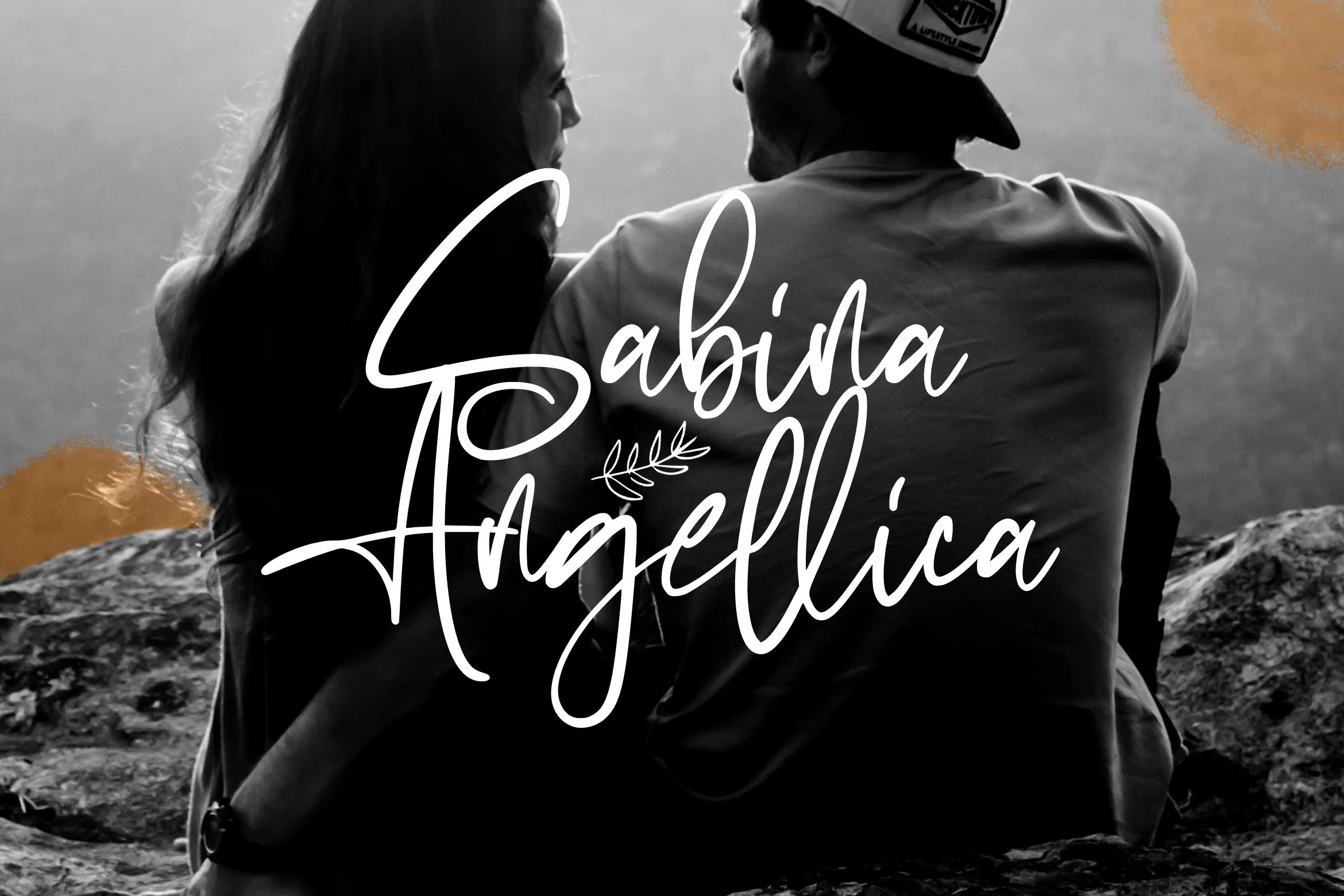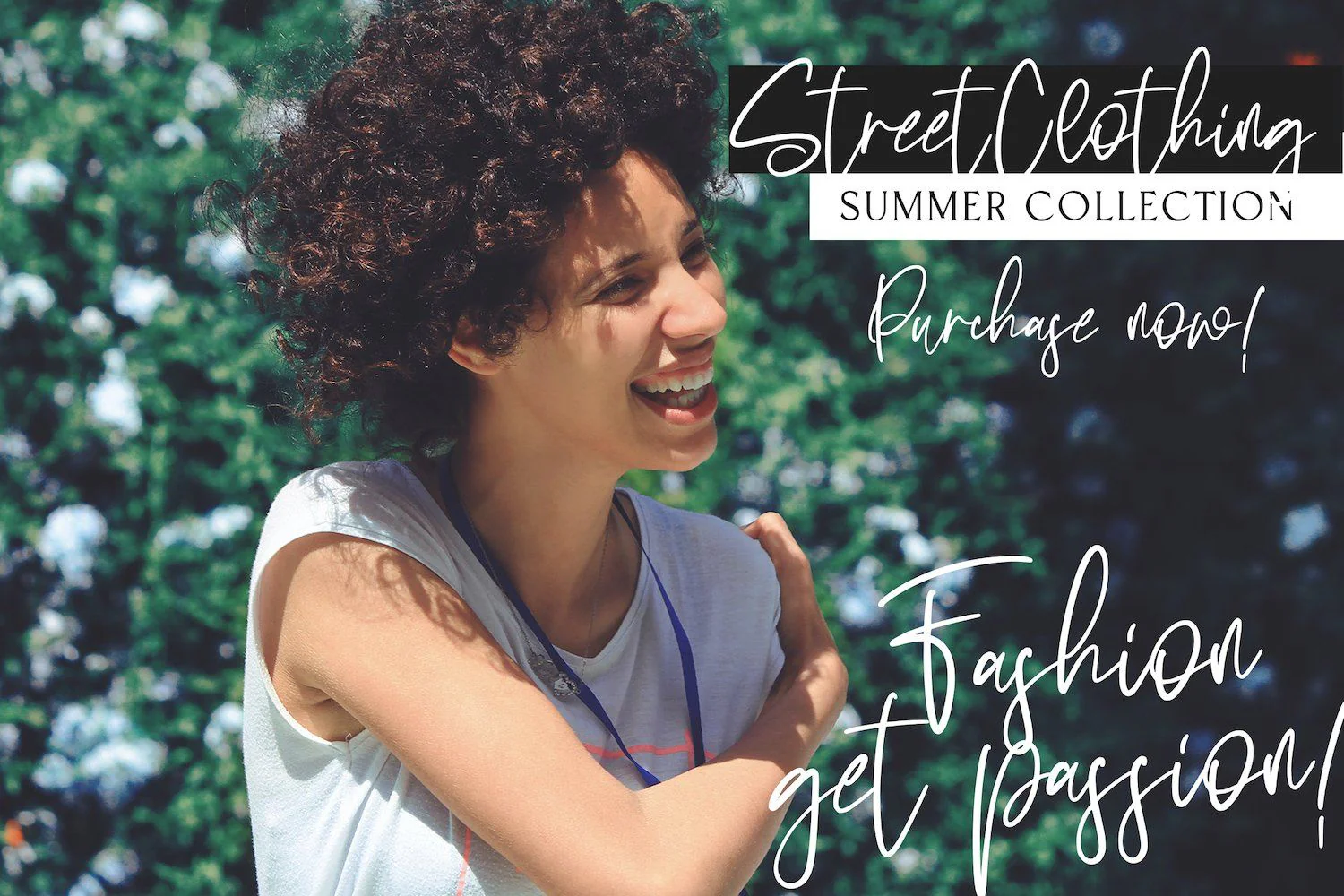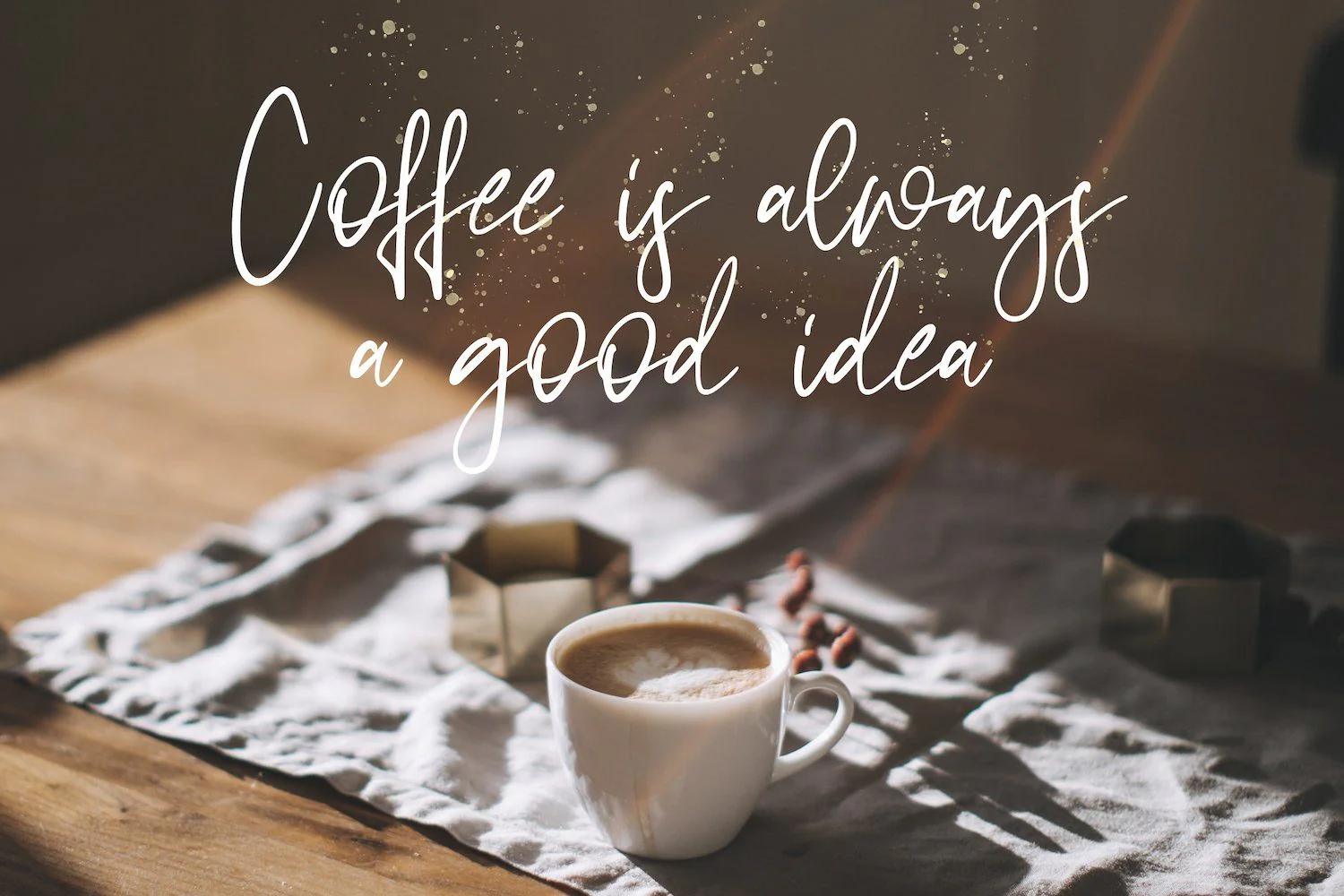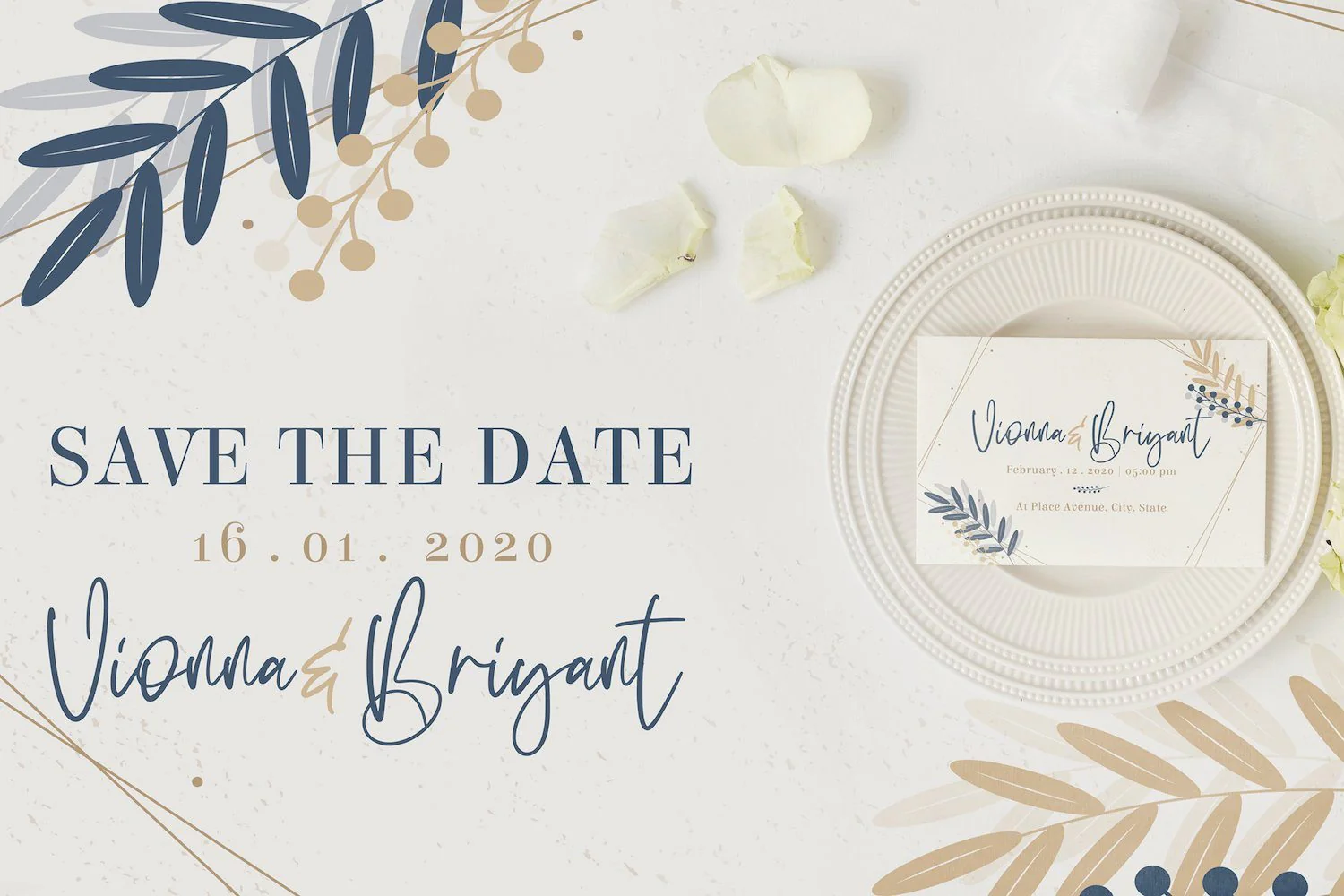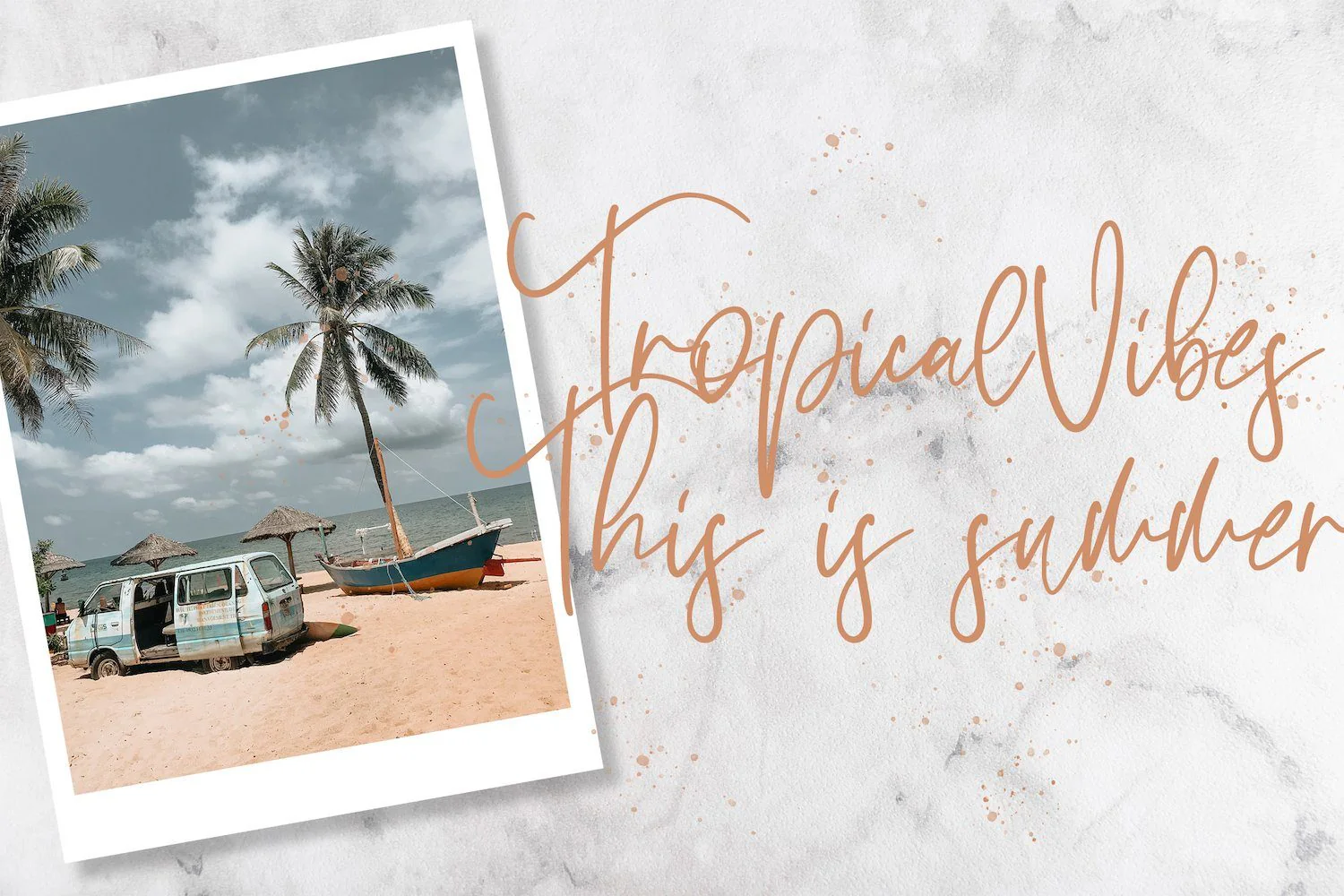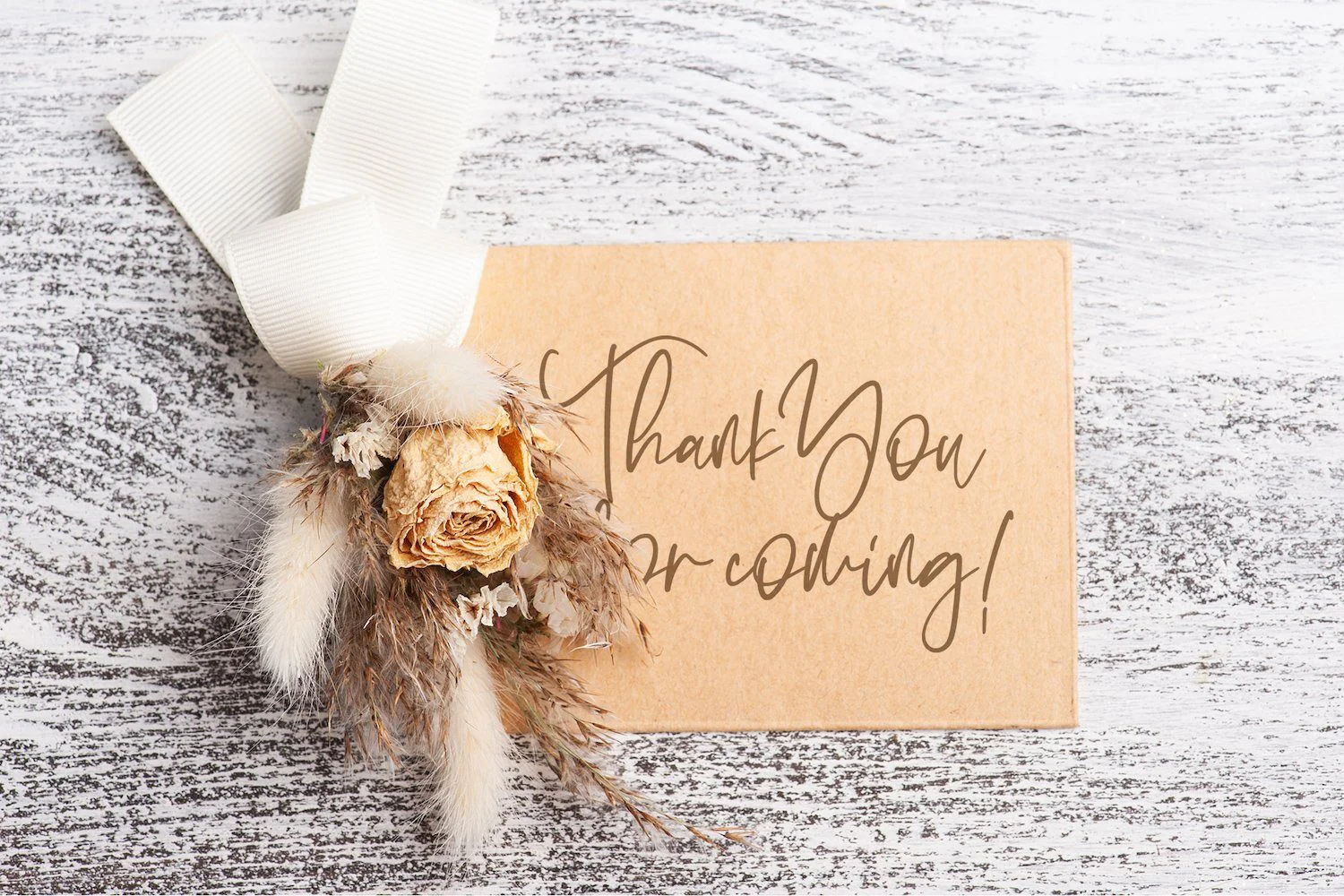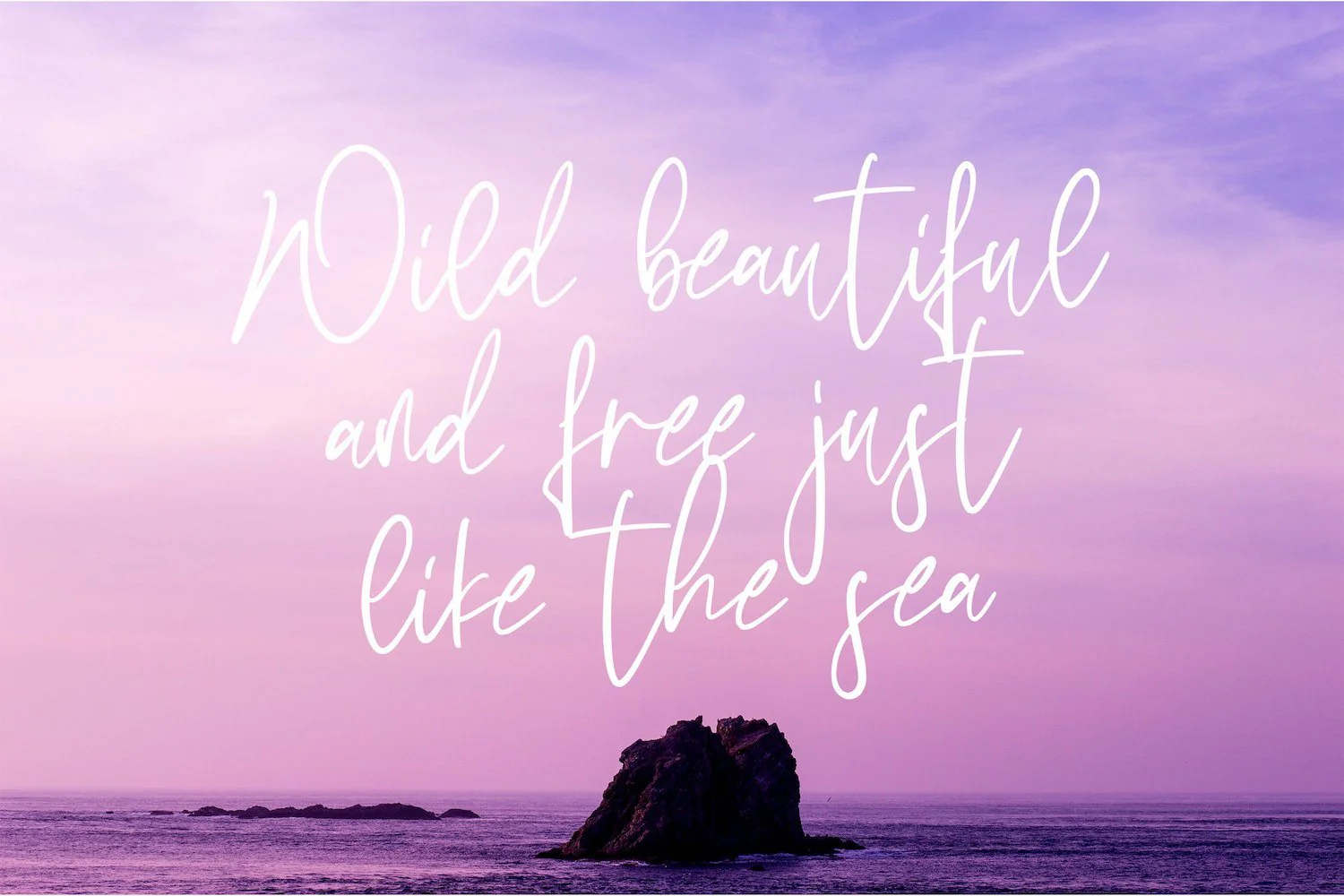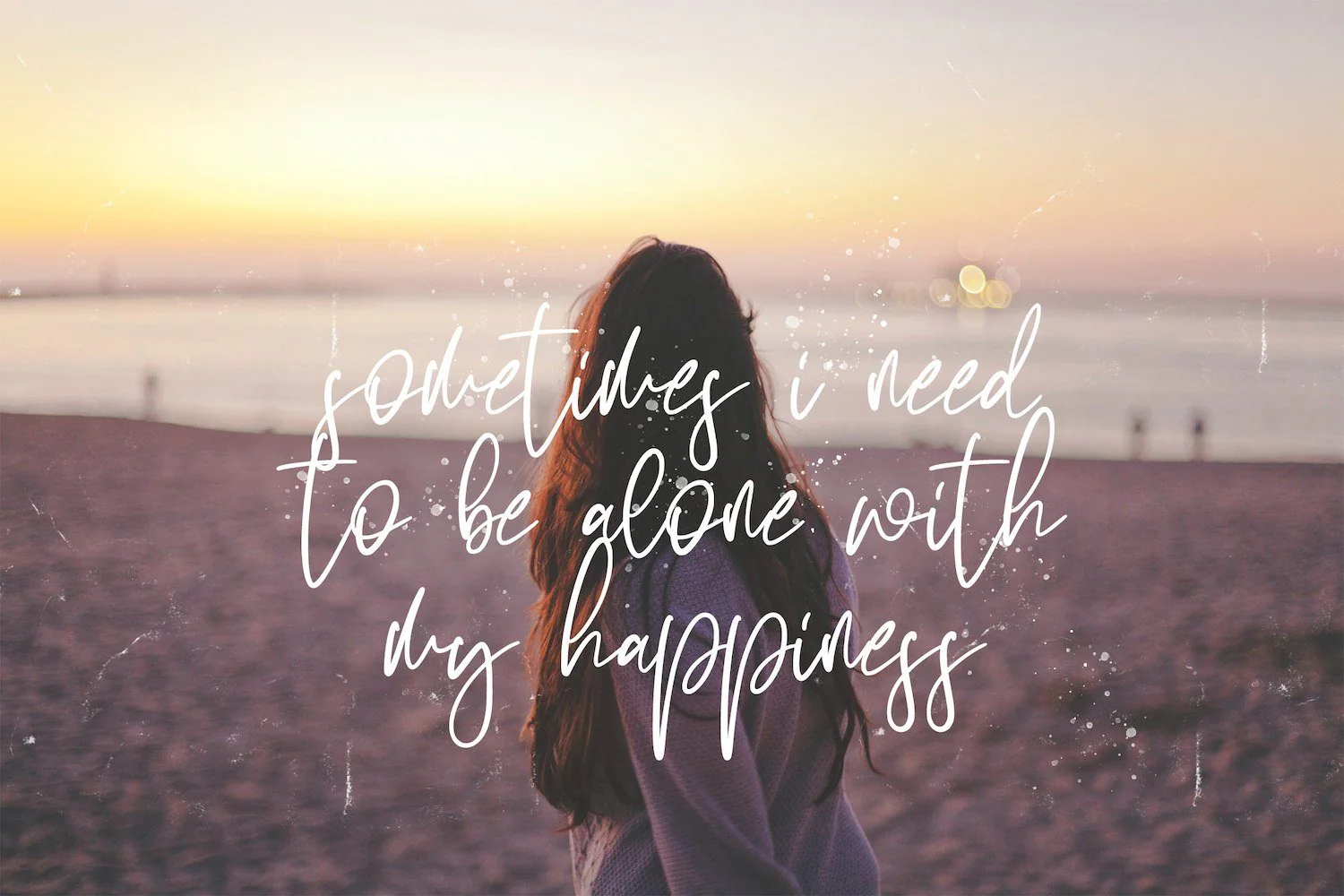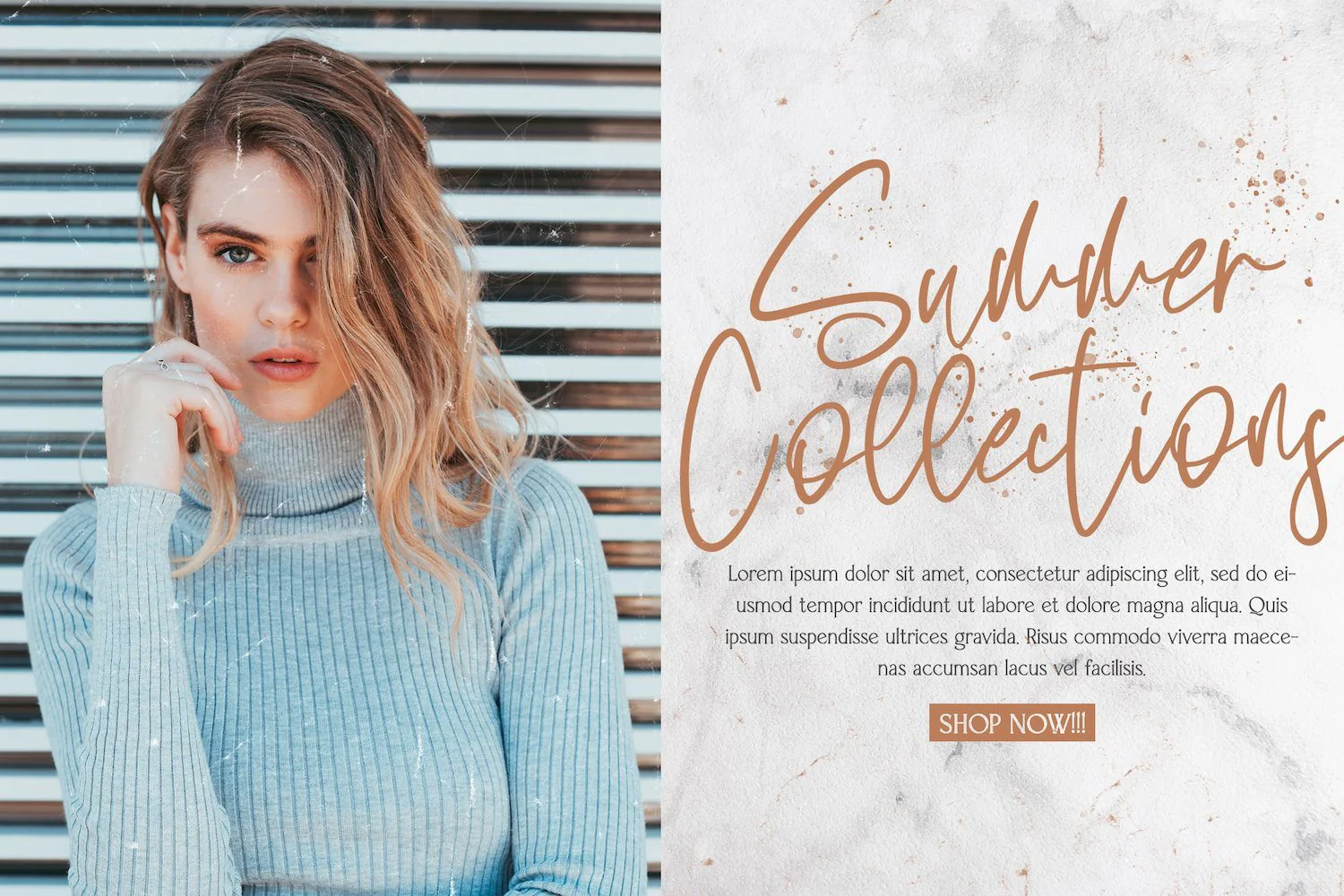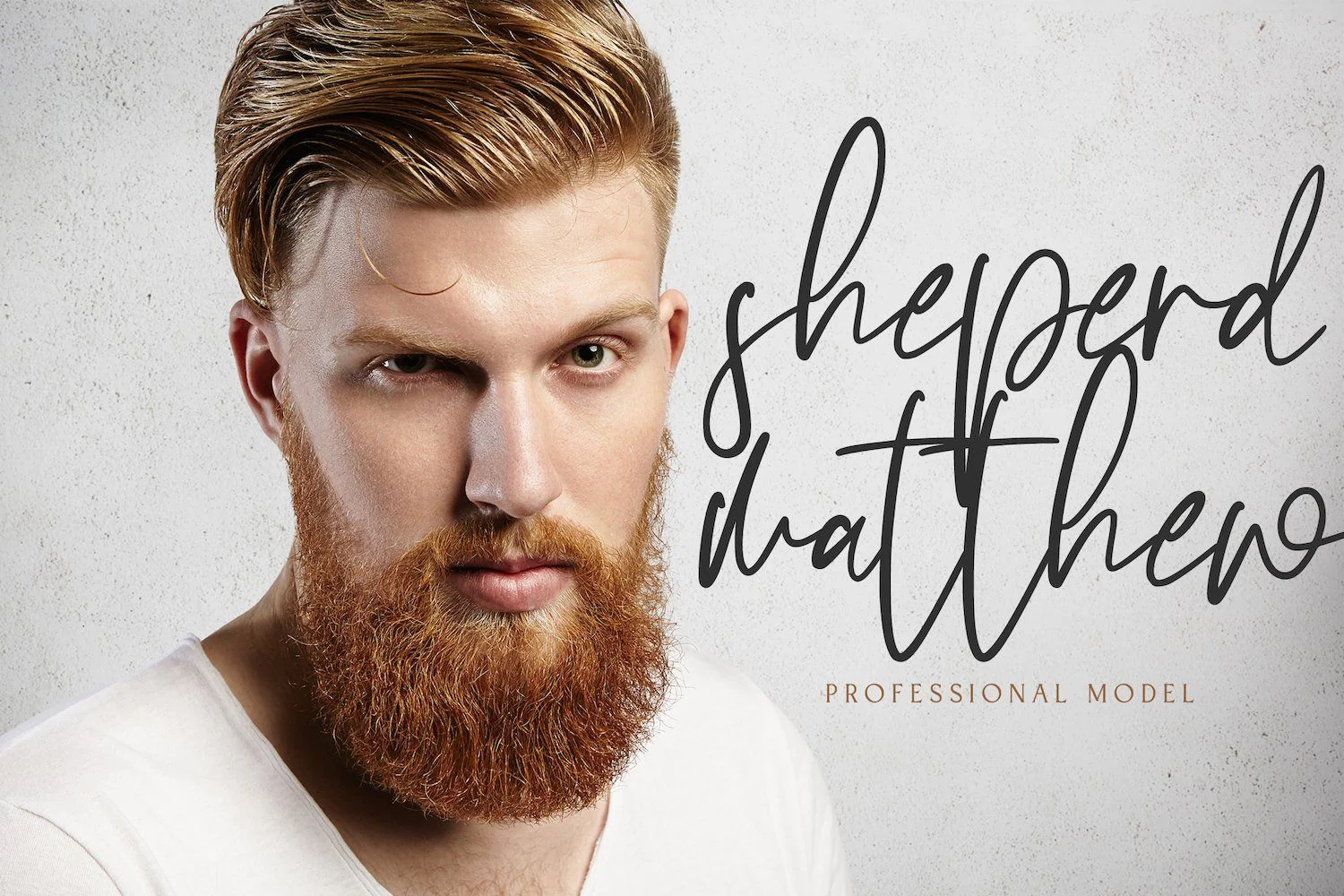
Sabina Angellica - Modern Script Font
Introducing Sabina Angellica - Modern Script Font
Sabina Angellica is a modern script font. It will elevate a wide range of design projects to the highest level, be it branding, headings, wedding designs, invitations, signatures, logos, labels, and much more!
Introducing Sabina Angellica - Modern Script Font
Sabina Angellica is a modern script font. It will elevate a wide range of design projects to the highest level, be it branding, headings, wedding designs, invitations, signatures, logos, labels, and much more!